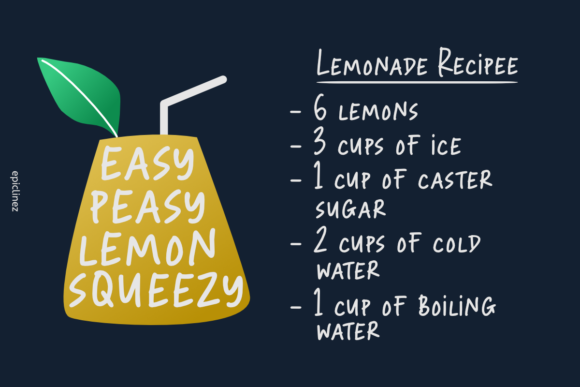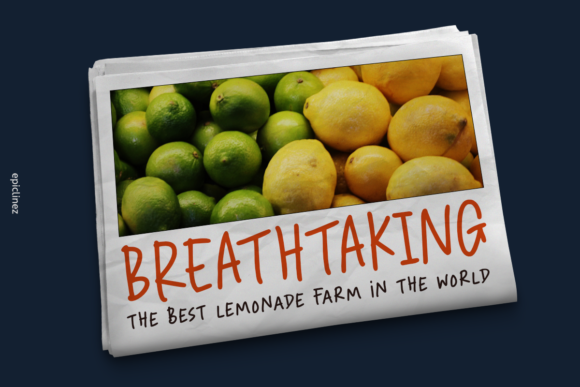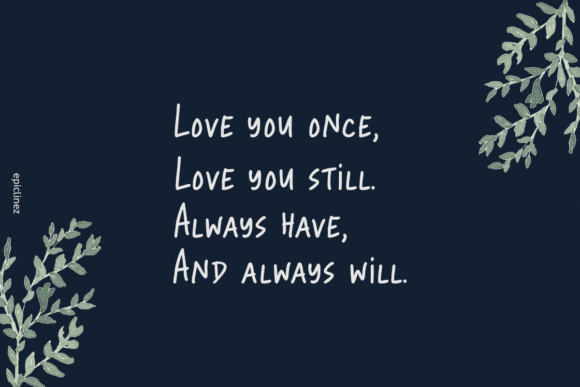
Lemon Party Font
About Lemon Party Font
Lemon Party is a cute and quirky handwritten font. It’s simple and friendly style makes this design incredibly versatile, fitting a wide variety of creative ideas.